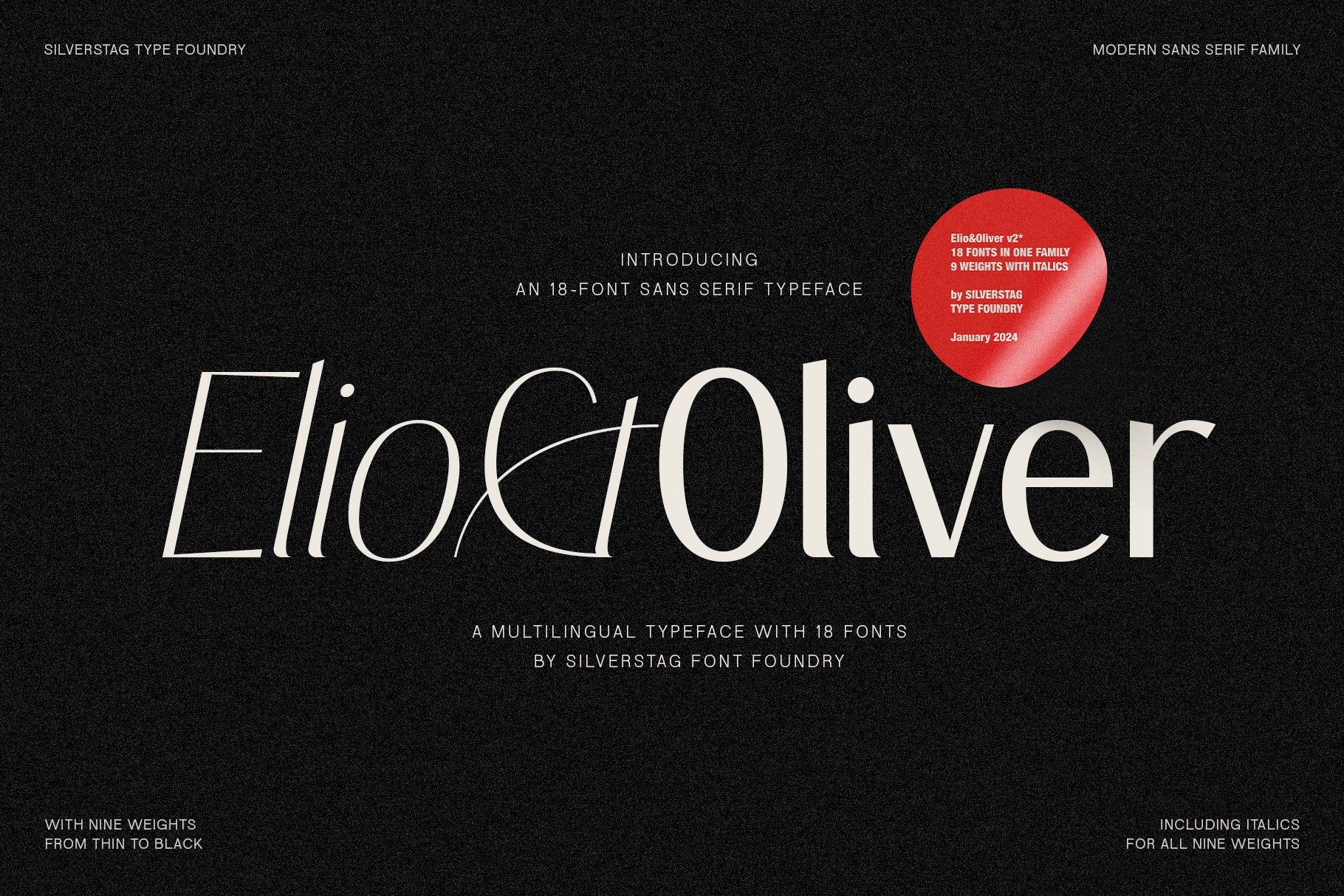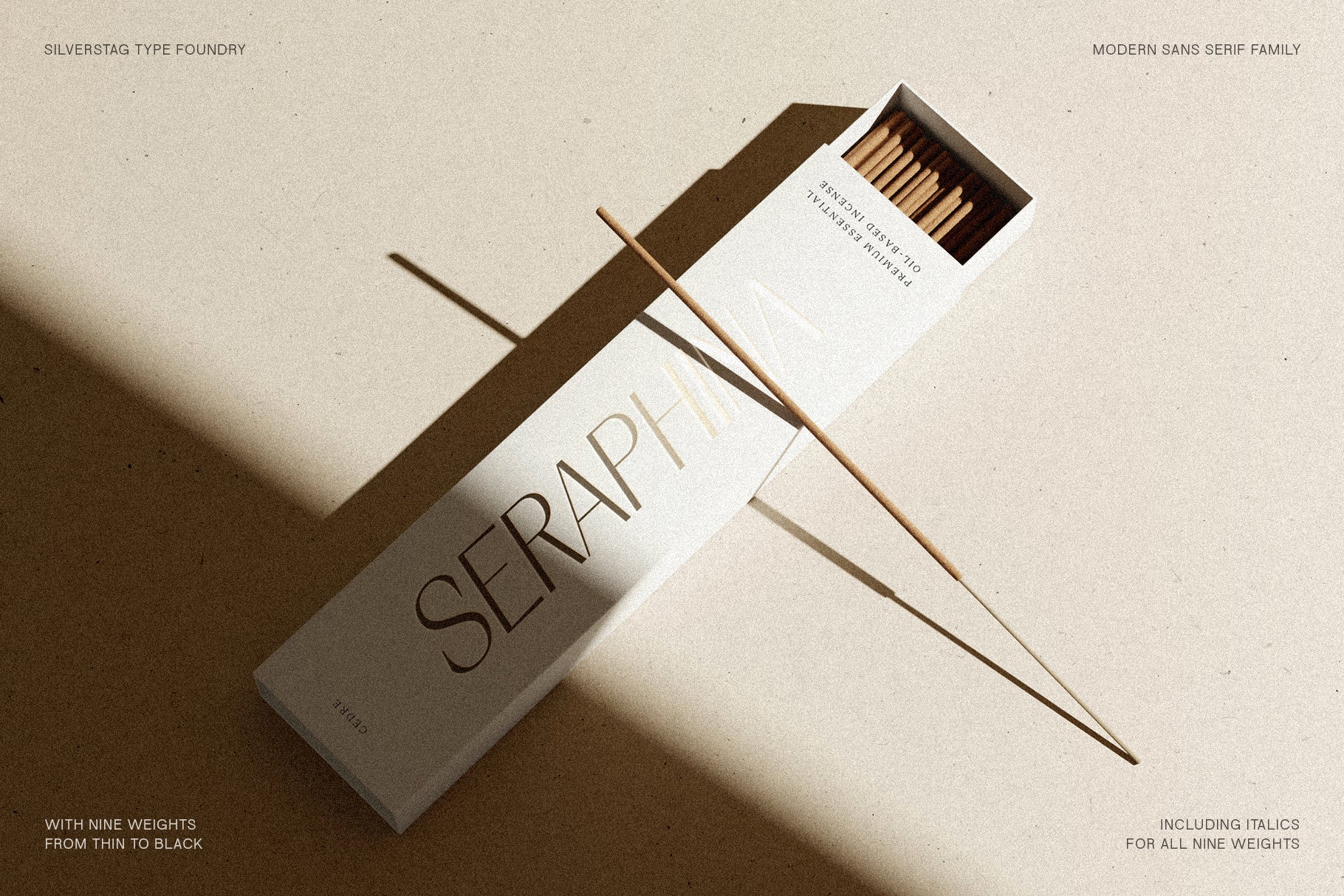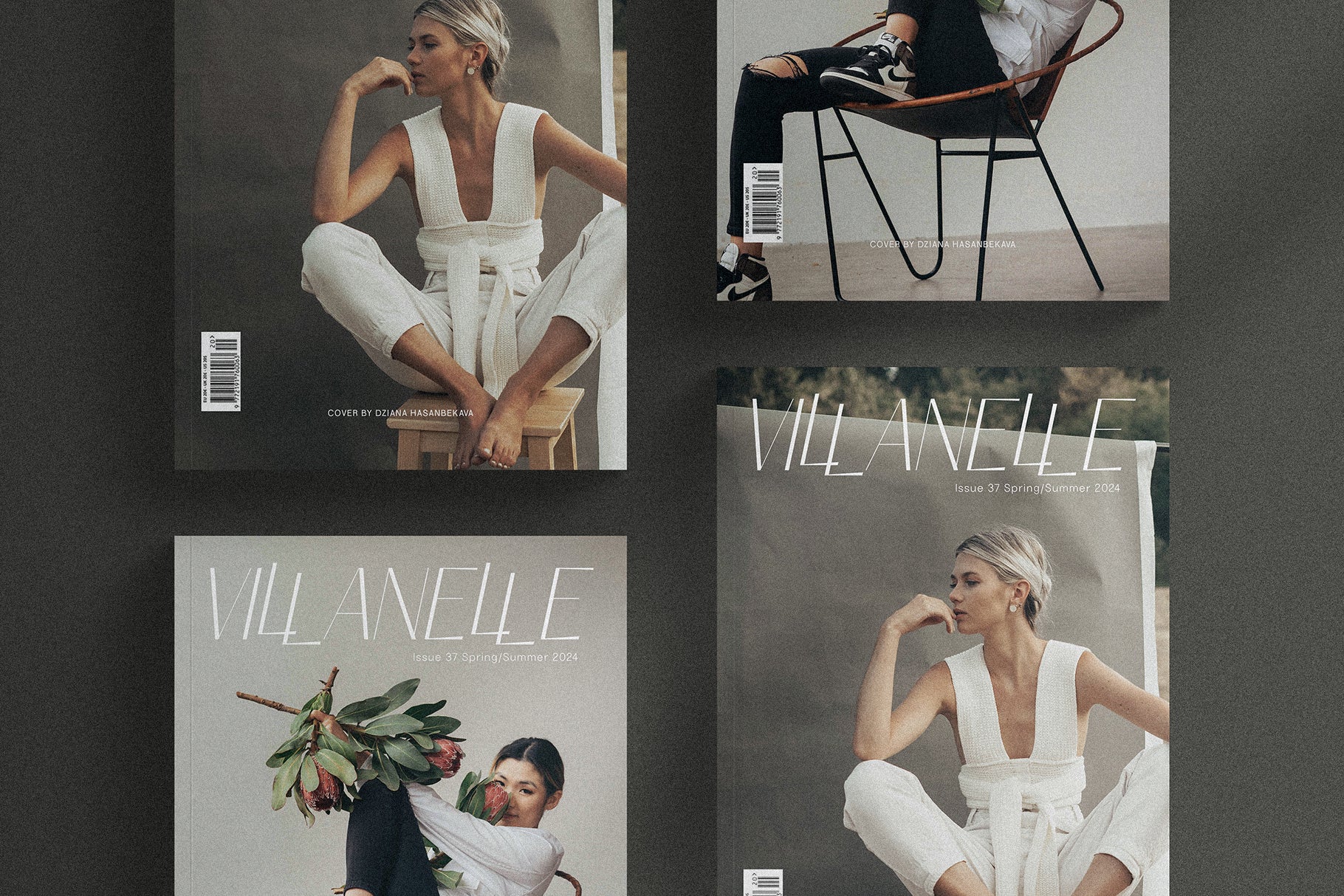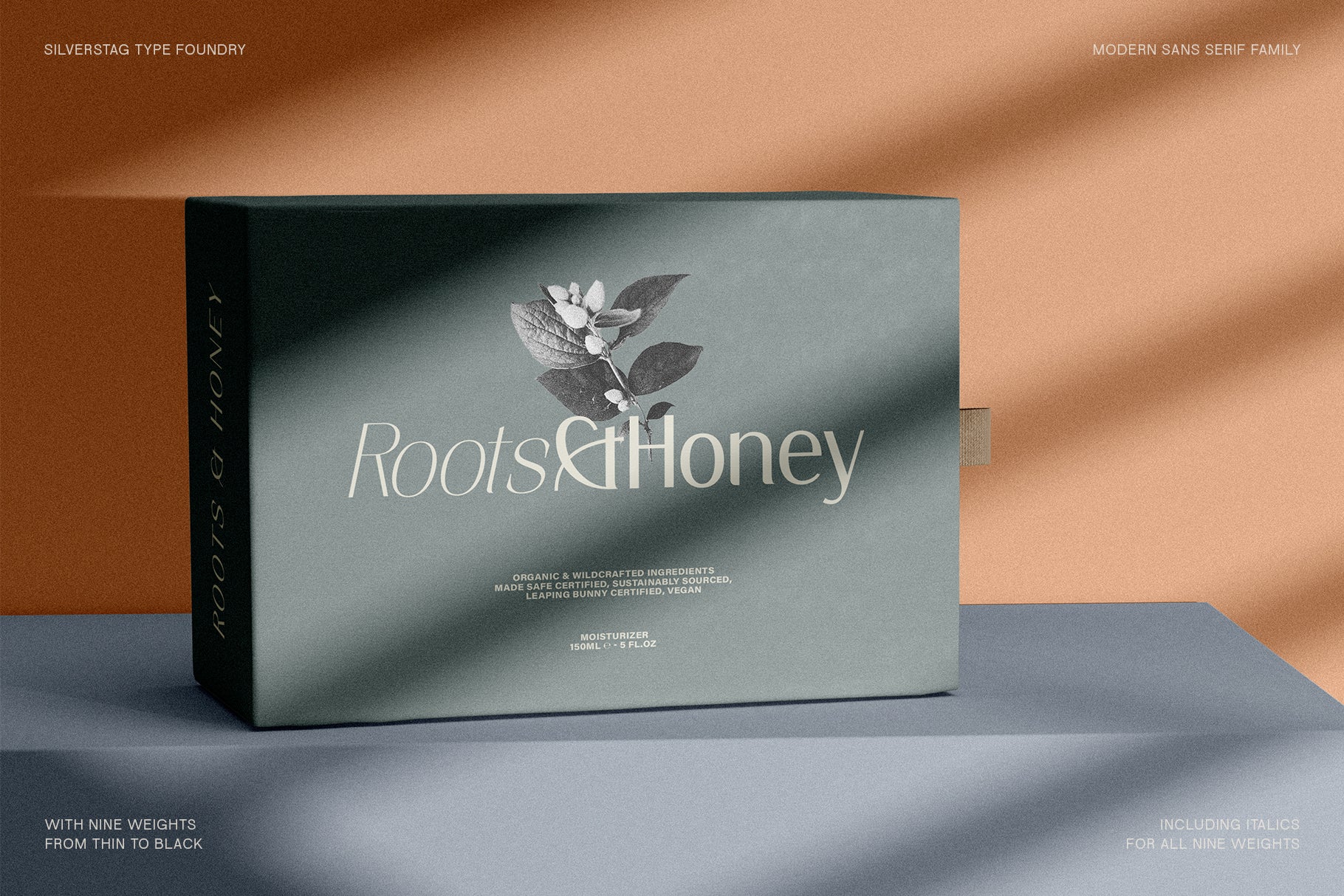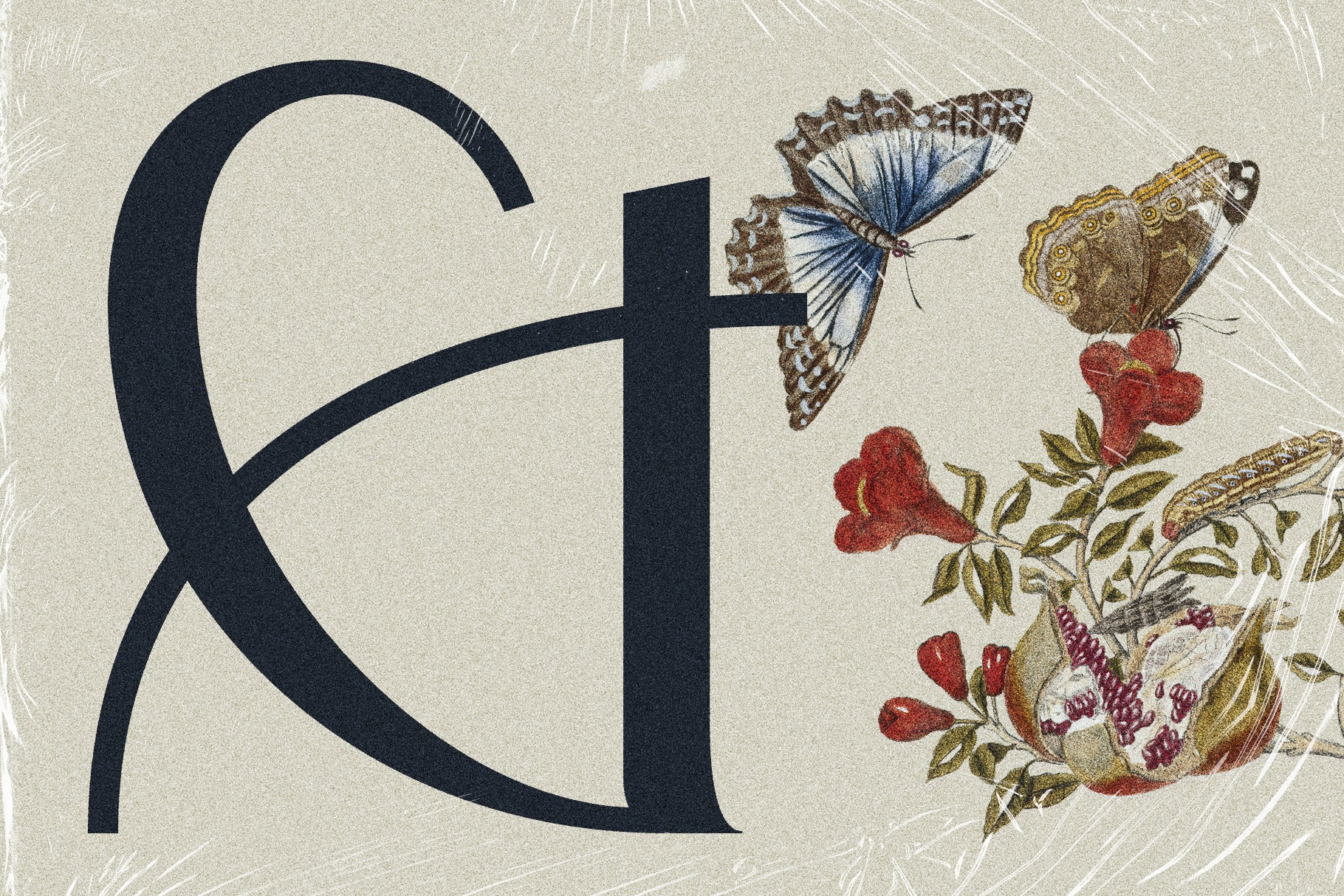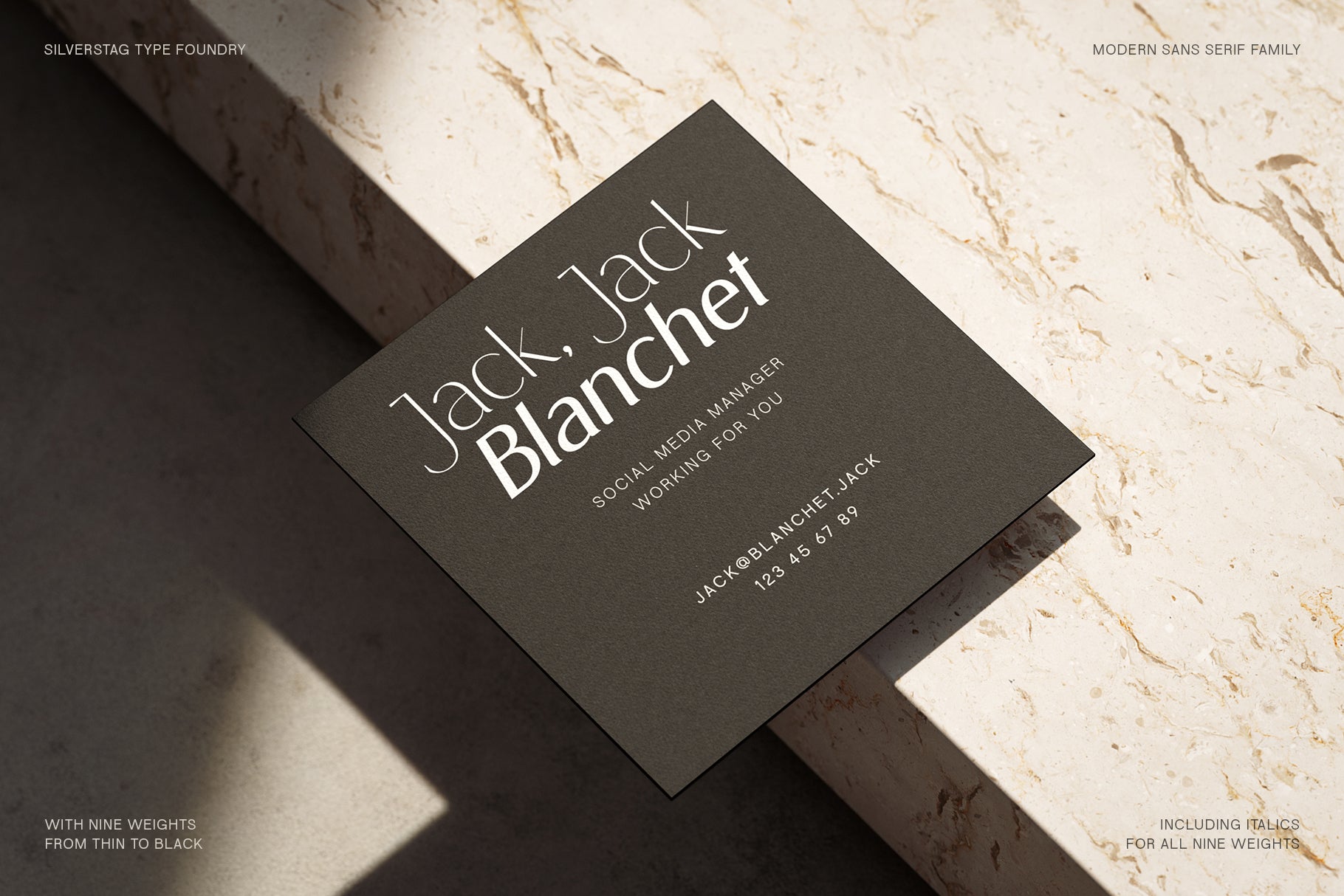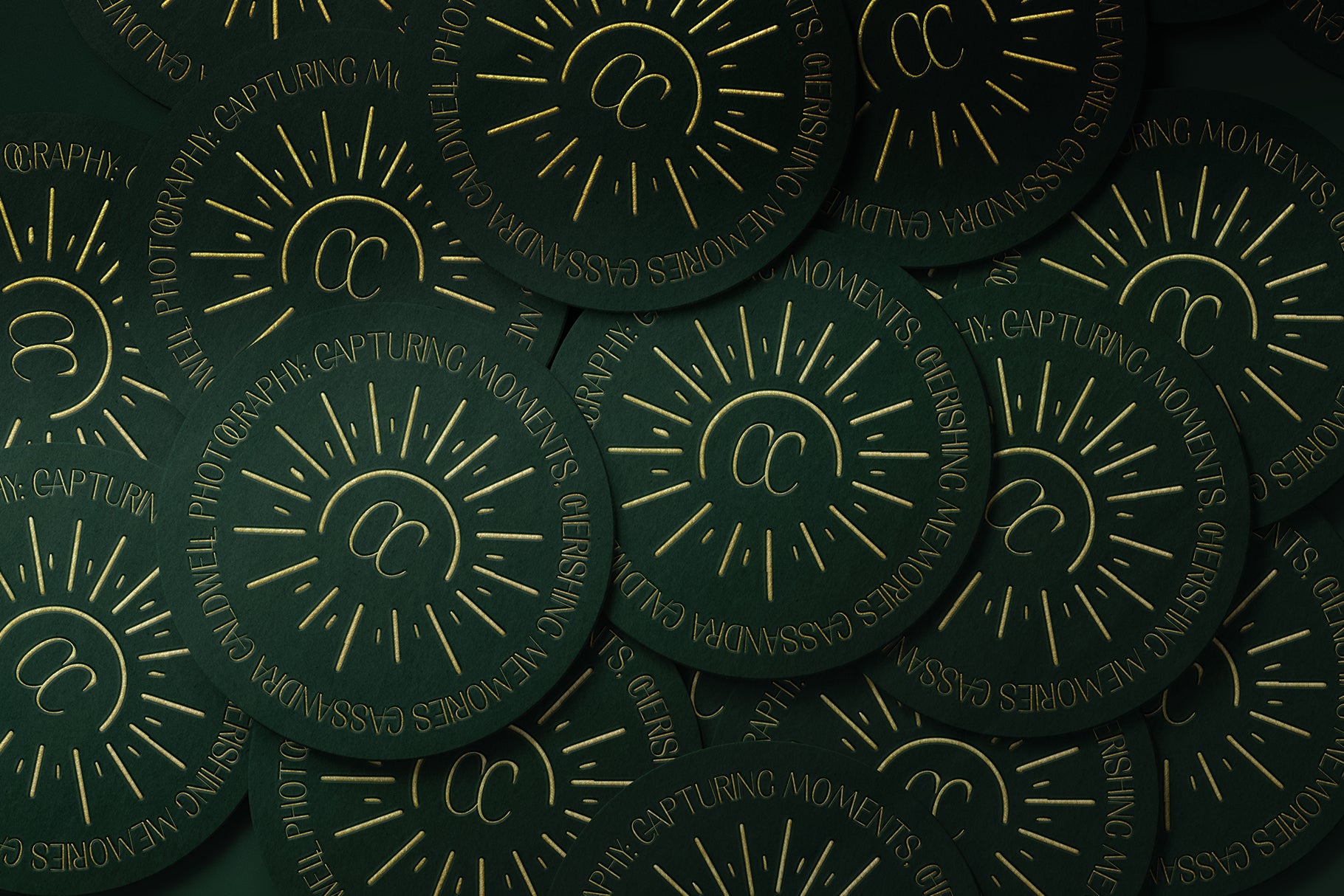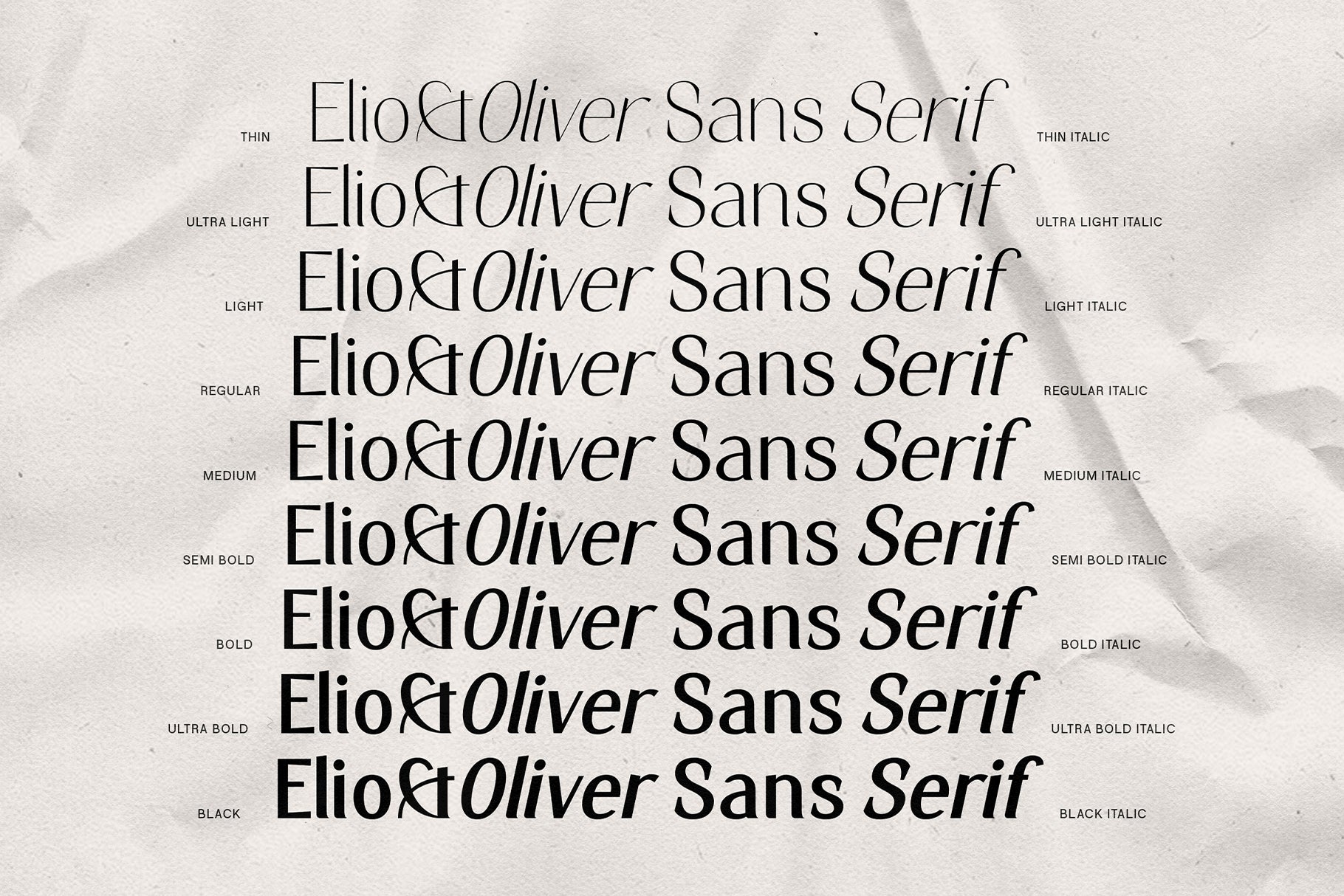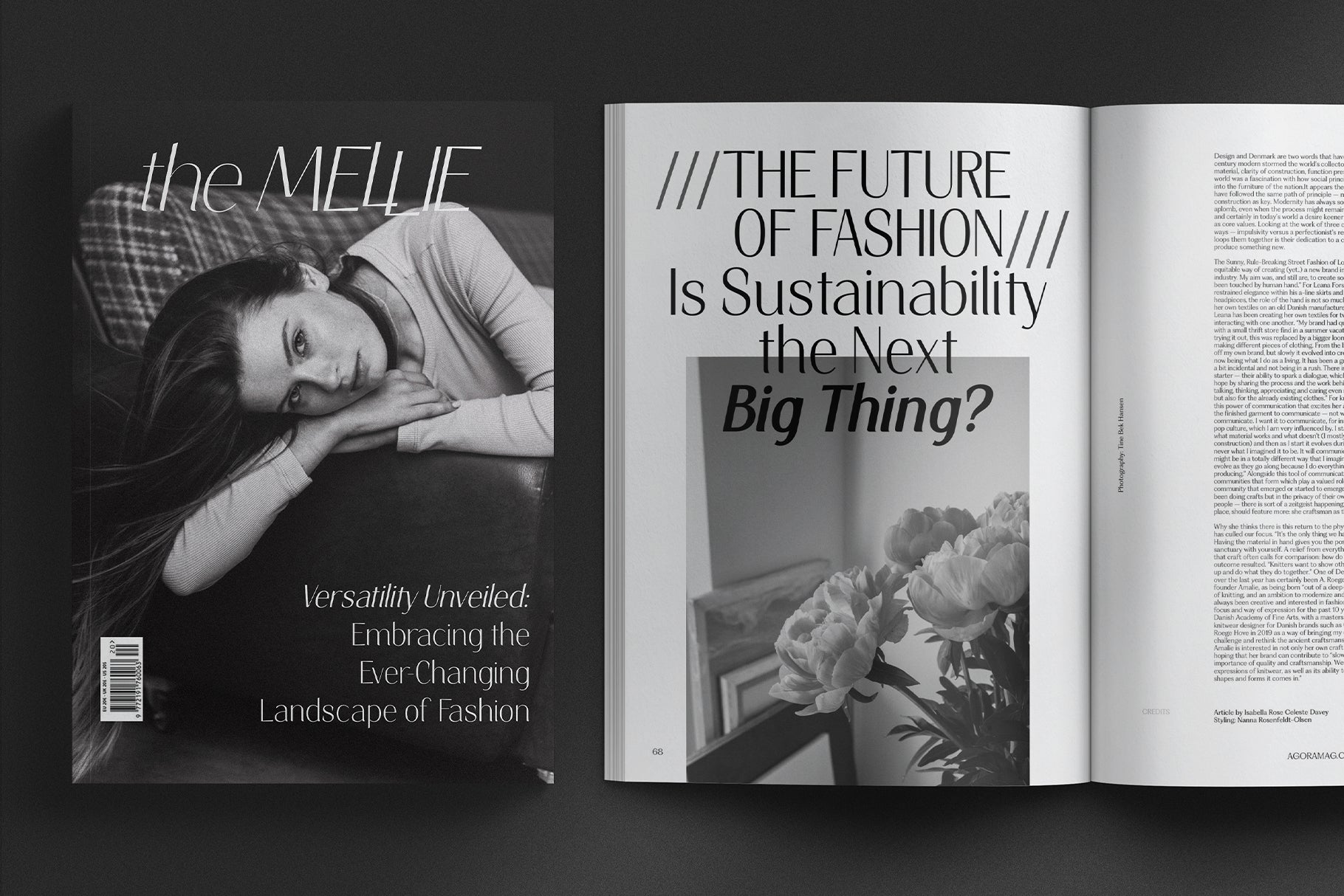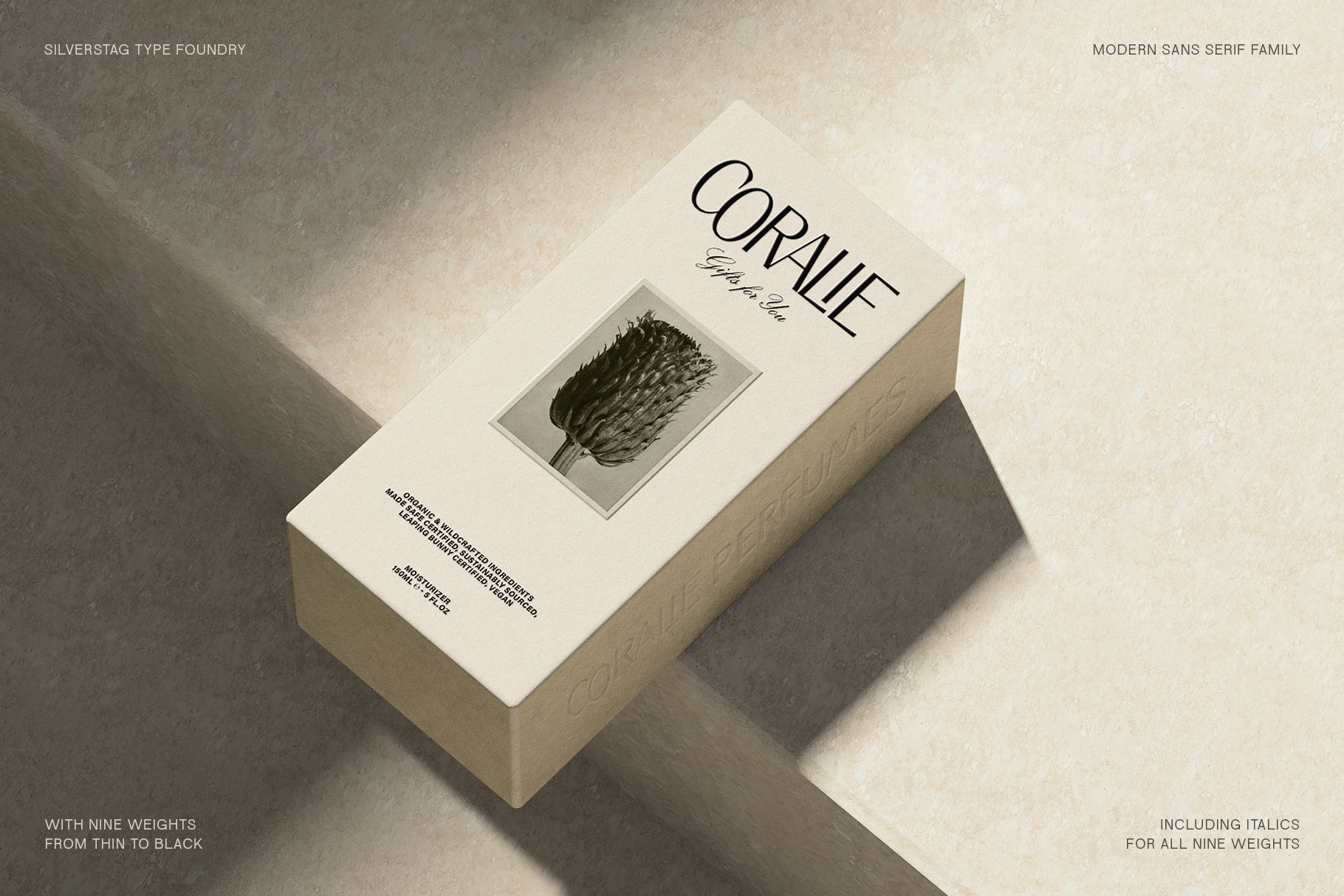
Elio & Oliver is a refined sans serif font family inspired by timeless Italian design and modern sophistication. Featuring 18 fonts across 9 weights (from Thin to Black) with matching italics, this typeface offers elegant versatility for branding, editorial design, web, and digital applications.
Graceful curves, clean lines, and subtle humanist touches give Elio & Oliver its distinctive charm. The roman styles are crisp and modern, while the new italics add expressive movement—creating a dynamic yet cohesive typographic voice.
Whether you’re designing minimalist layouts, premium brand identities, fashion lookbooks, or digital interfaces, Elio & Oliver adapts effortlessly across styles and formats. Its full language support spans over 90 languages, making it a sophisticated and globally ready design tool.
From light and delicate to bold and commanding, this modern sans serif family brings elegance and clarity to every letter.